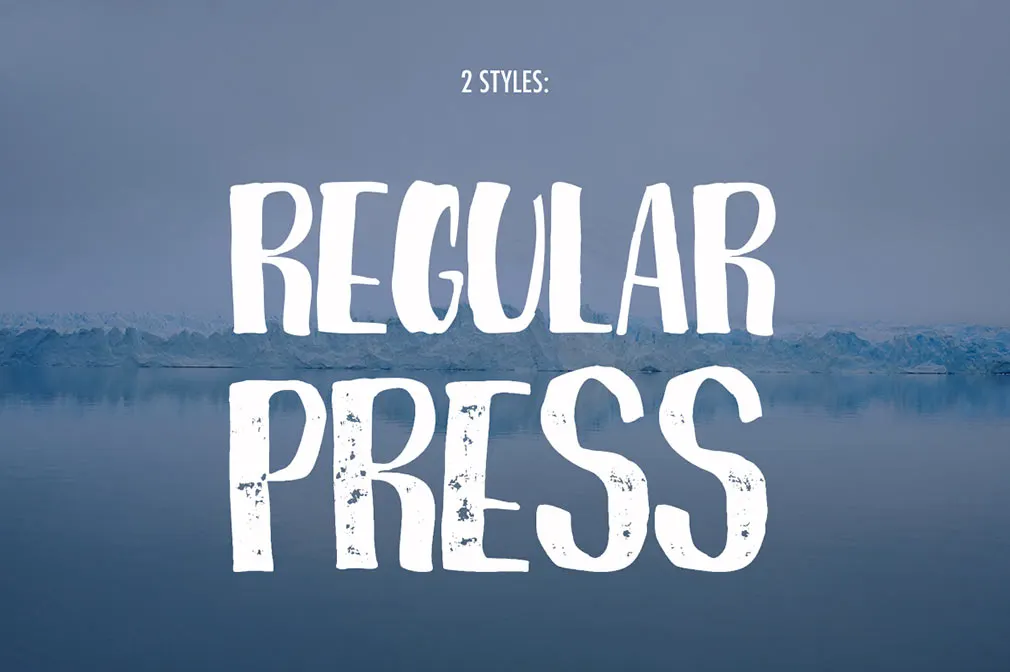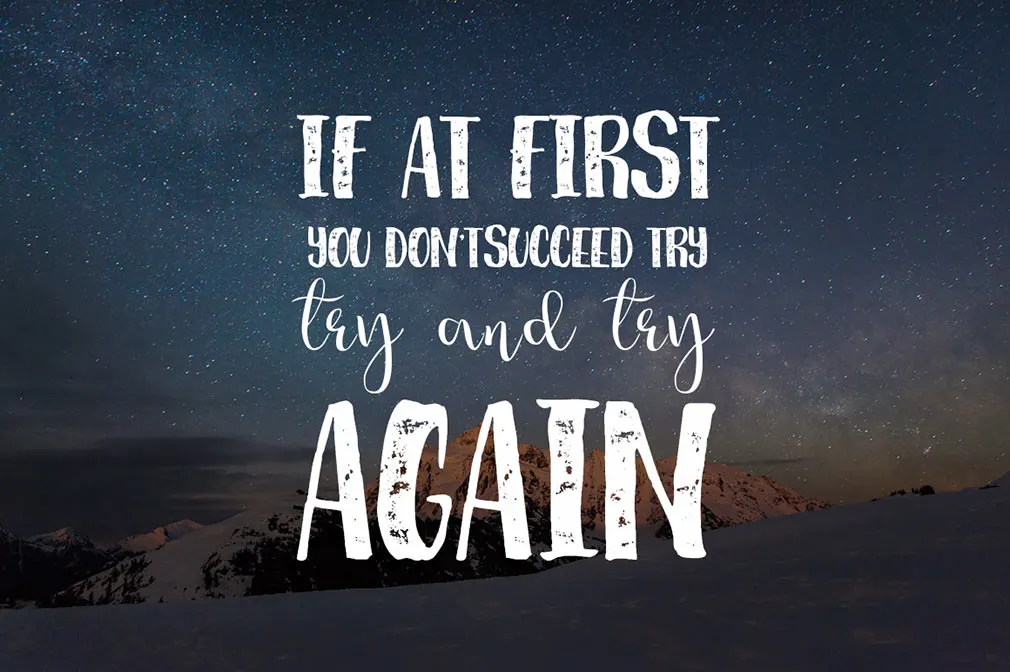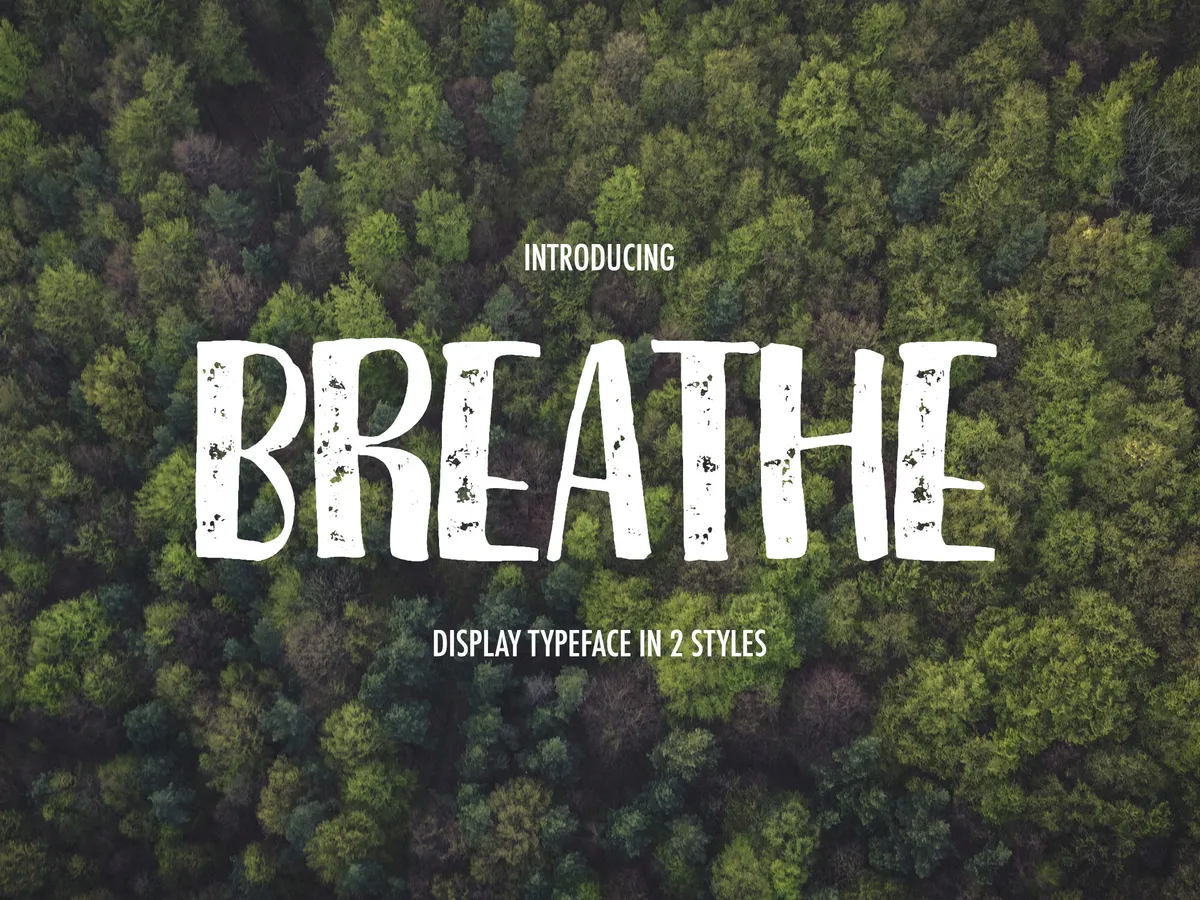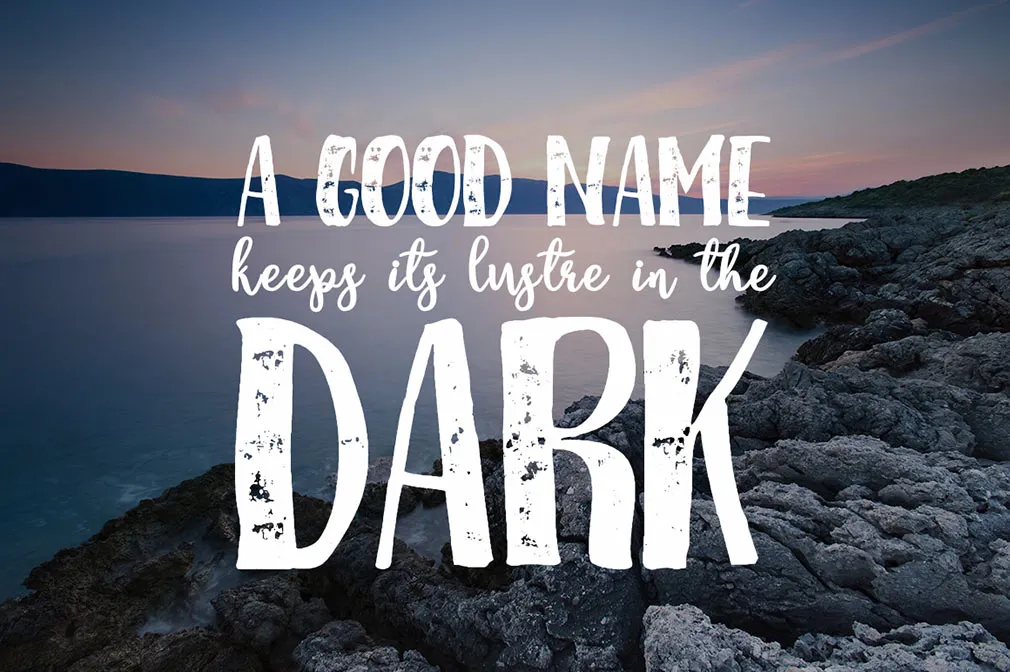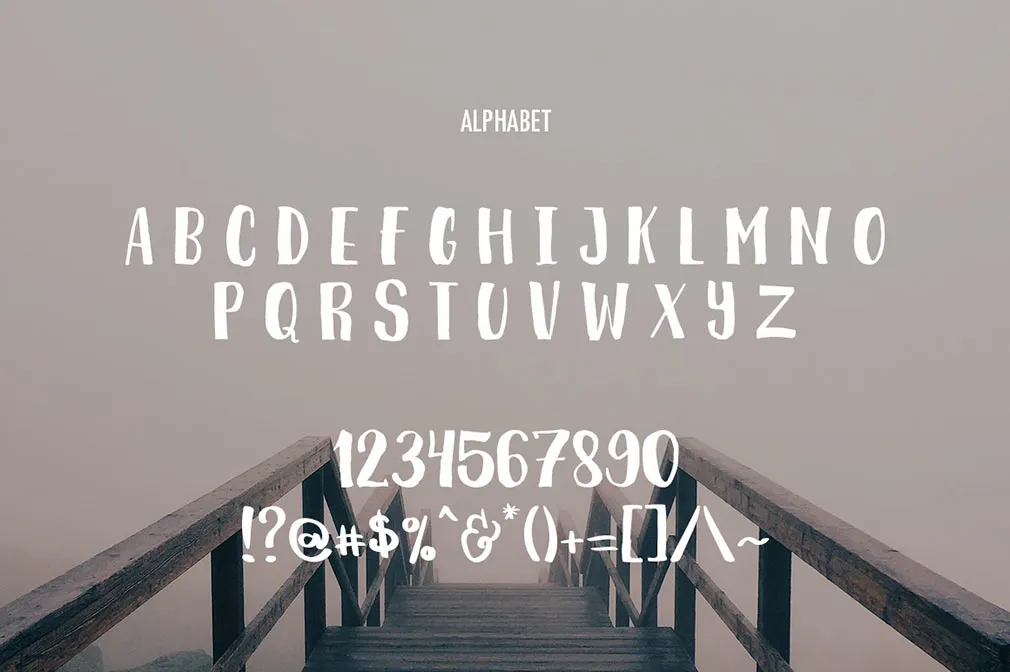
Breathe Display Font
Get the Breathe, a handwritten display font available in all modern formats and ready to participate in your projects. Get access to the artistic ragged style, making you go crazy over it!
Available in two styles this typeface is praised by decorative font-lovers and anyone, who enjoys unusual design. Its irregular turns created on purpose have something it's hard to explain, let's say appealing and brilliant. Ideally suitable for the decoration of your works: logos, invitations, greeting cards, apparel, banners and even more!